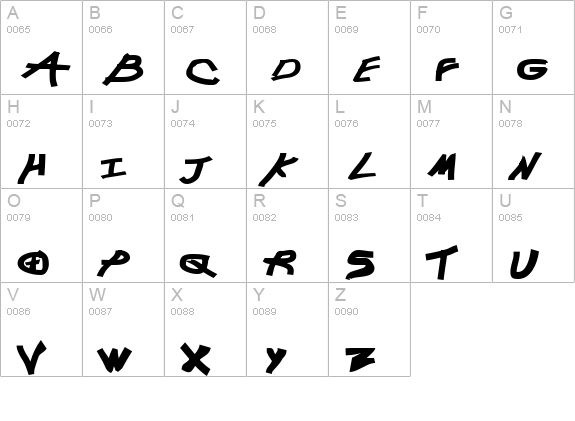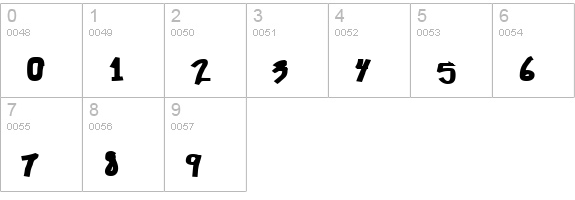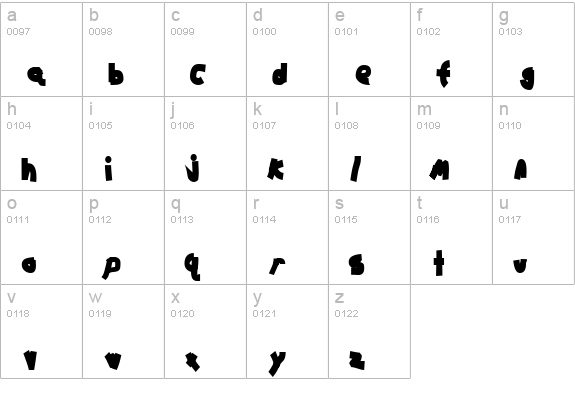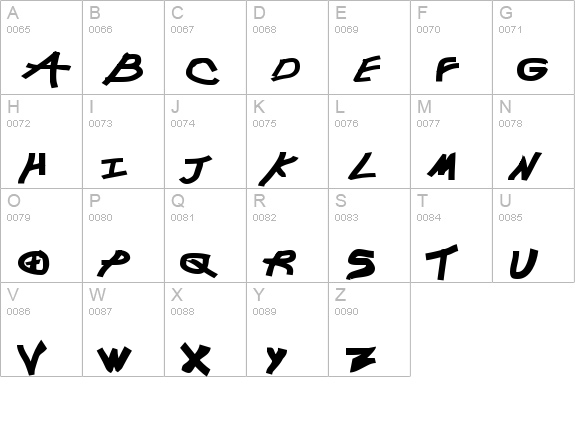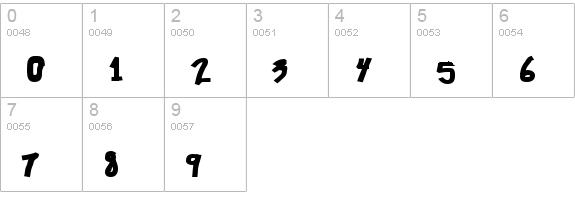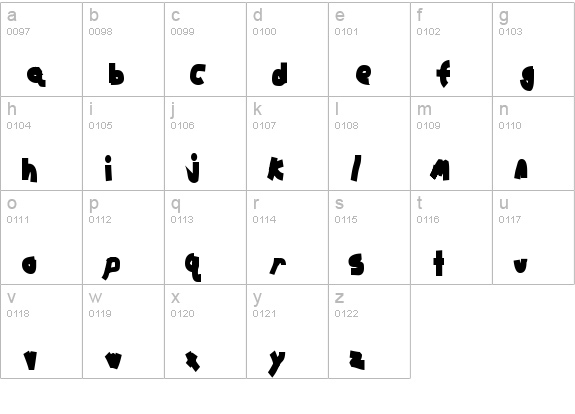
Chunkmuffin Black is a maximum-weight, dramatic variant in the Chunkmuffin typeface family \xE2\x80\x94 well suited to maximum-impact headlines, posters, and packaging.
Chunkmuffin Black font is a bold and eye-catching display typeface that exudes a sense of strength and modernity. Its chunky and robust letterforms make a powerful statement, perfect for headlines, posters, and branding projects. The thick strokes and rounded edges give it a friendly and approachable feel, making it versatile for a wide range of design applications. Best of all, Chunkmuffin Black font is available for free download at FontsMarket.com. This means you can easily access this stylish and impactful font without any cost, making it a valuable addition to your font collection. Don't miss out on the opportunity to enhance your designs with the striking presence of Chunkmuffin Black font. Download it today and start creating bold and impactful designs that stand out from the crowd.